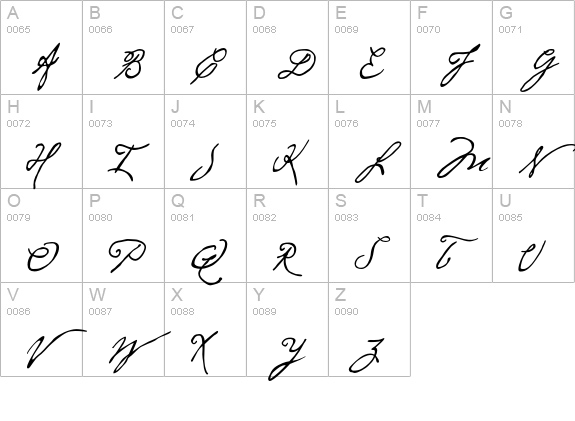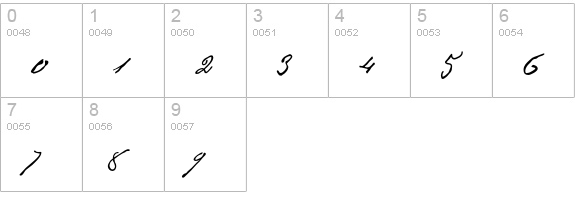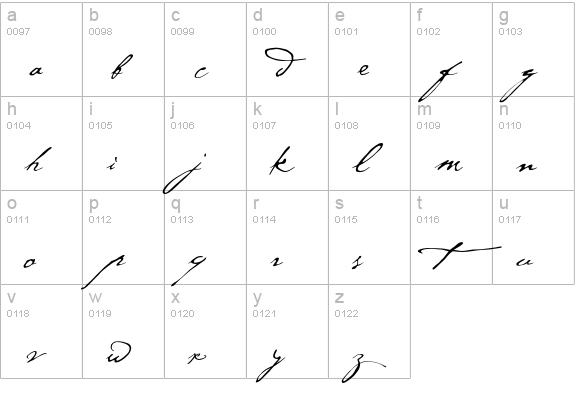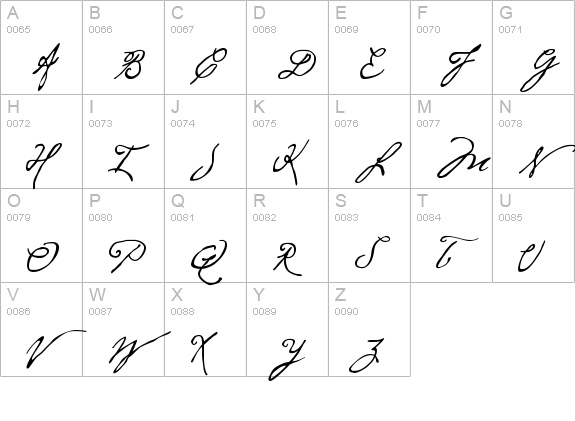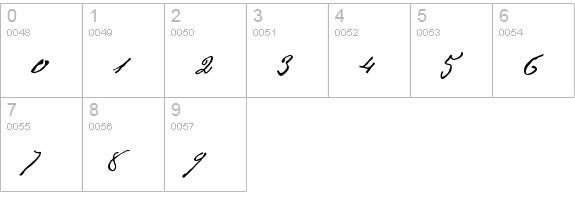
P22CezanneRegular Font Details
P22CezanneRegular font is a stunning typeface that captures the essence of the great artist, Paul Cézanne. With its elegant curves and refined strokes, this font exudes a sense of sophistication and creativity. Each letter is carefully crafted, paying homage to Cézanne's attention to detail and artistic vision. This font is a perfect choice for designers and artists looking to add a touch of elegance and artistic flair to their projects. Whether you're designing a logo, creating a poster, or crafting a unique piece of typography, P22CezanneRegular font will elevate your work to new heights. One of the best things about P22CezanneRegular font is that it is freely available to download at FontsMarket.com. This means that you can easily access and use this beautiful typeface without any cost. It's a fantastic opportunity to enhance your creative projects without breaking the bank. So why wait? Download P22CezanneRegular font today and unleash your creativity with this stunning typeface. Whether you're a professional designer or a hobbyist, this font will inspire and captivate your audience. Don't miss out on this incredible free font that is just a few clicks away at FontsMarket.com.